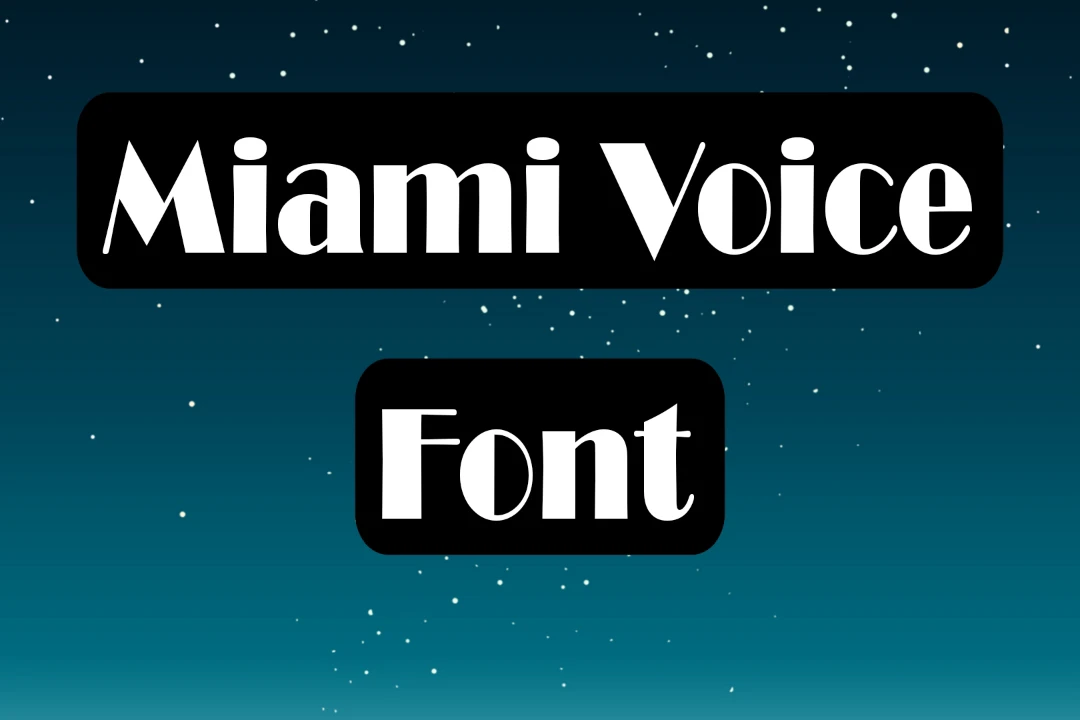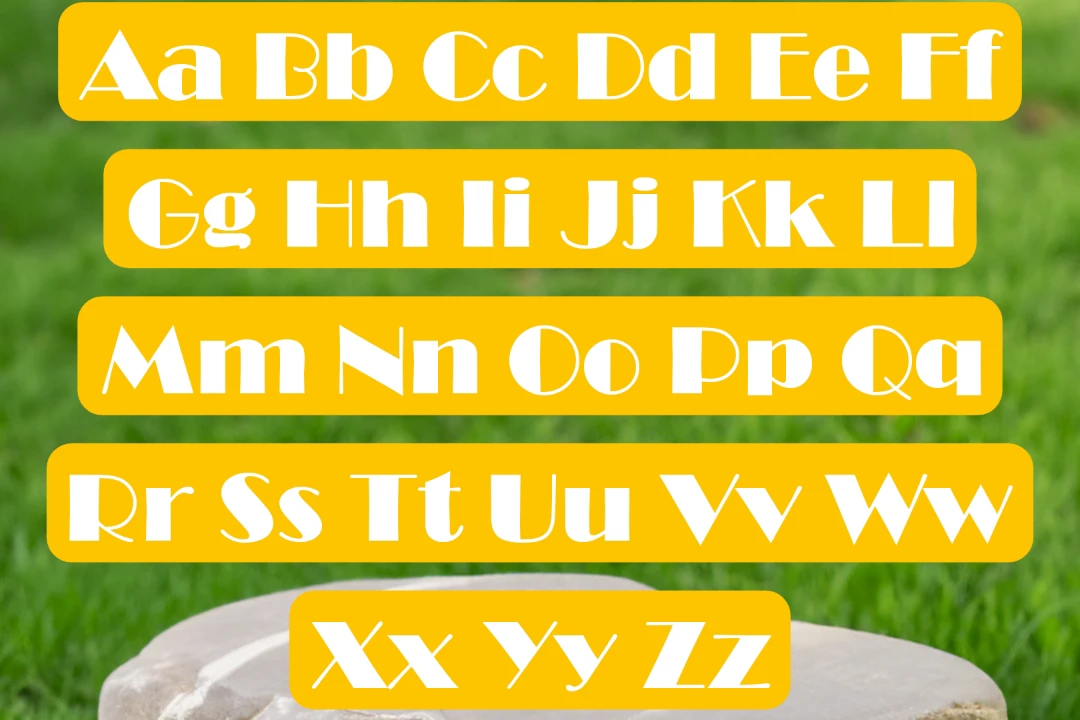
Miami Vice Font
‘Miami Vice Font Free Download’ is a trending keyword among designers who want a retro and neon-style typeface. Inspired by the iconic Miami Vice logo, this font falls under the fancy and retro display category and is perfect for vintage-themed designs.
It is widely used in Canva, Adobe Photoshop, and Illustrator for creating logos, posters, and neon-style graphics with strong font pairing and online generator tools. Many users search for the Miami Vice font free download to design eye-catching and stylish projects.
Usage of Miami Vice Font
This font has quickly become a favourite across various platforms. Since its release to the public, it has found its way into numerous applications and contexts.
Originating from the iconic Miami Vice logo, it is particularly well-suited for logos and titles, adding a touch of retro charm.
Miami Vice Font
NameMiami Vice Font
DesignerMorris Fuller Benton
StyleFancy
Miami Vice Font Family
• Broadway Regular
• Broadway Italic
• Broadway 3D Regular
• Broadway Shadow Regular
• Broadway 3D Italic
• Broadway 3D Filled Italic
• Broadway Flat Italic
• Broadway Flat 3D Italic
• Broadway Flat Regular
• Broadway Flat 3D Regular
• Broadway Flat 3D Filled Regular
• Broadway Gradient 3D Regular
• Broadway Flat 3D Filled Italic
• Broadway Gradient 3D Italic
• Broadway Shadow Italic
• Broadway 3D Filled Regular